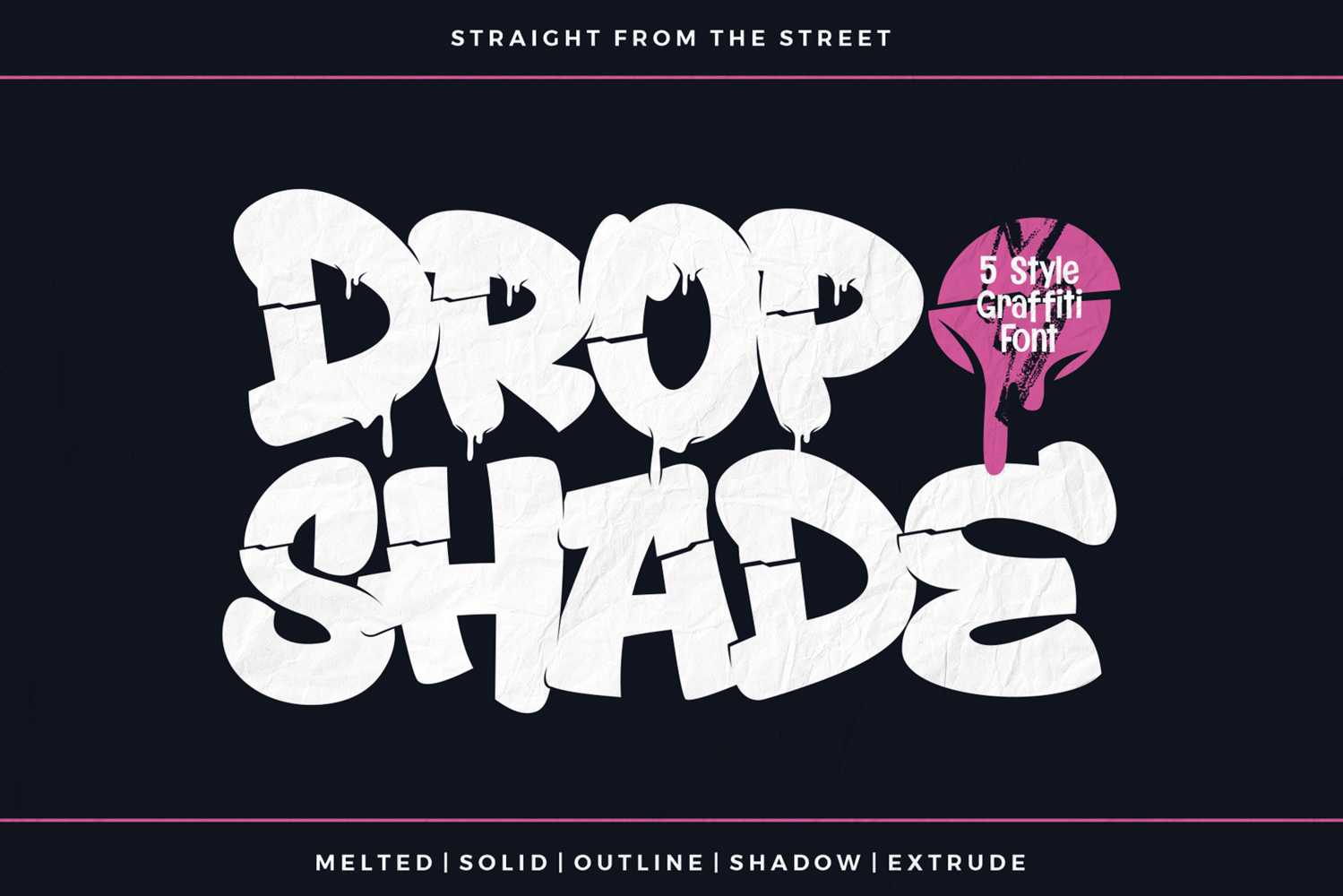
Drop Shade | Melted 3D Graffiti Font
Drop Shade is a bold 3D melted graffiti font inspired by authentic street art culture. Its dripping style and layered 3D look make it a must-have for designers working on streetwear logos, hip-hop posters, merchandise, album covers, and urban-inspired projects. Perfect for both print and digital use, this font adds depth, energy, and bold personality to any creative work.